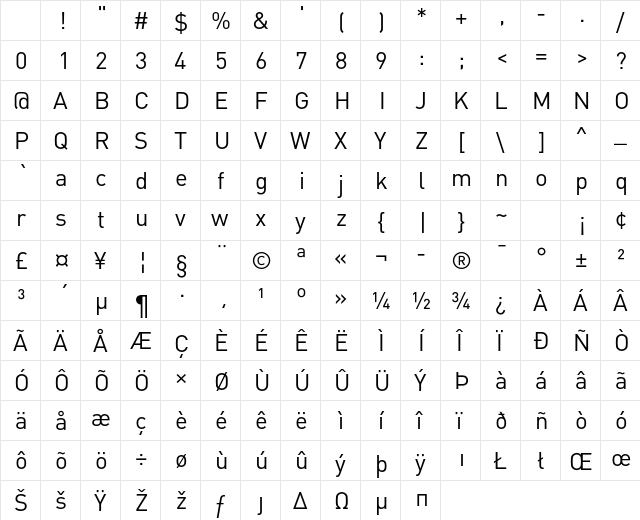
Complete DINOT-Regular glyph index. Displaying only characters natively supported by DINOT-Regular font.
DINOT-Regular is a composed and adaptable typeface that performs quietly and consistently across a wide range of design contexts.
Who designed the DINOT-Regular font?